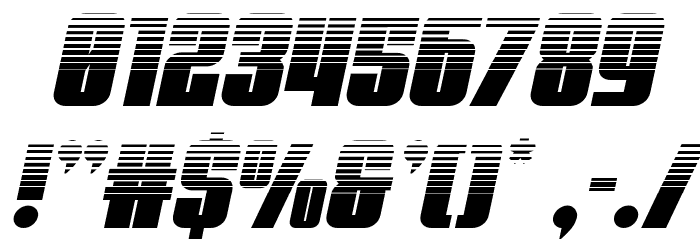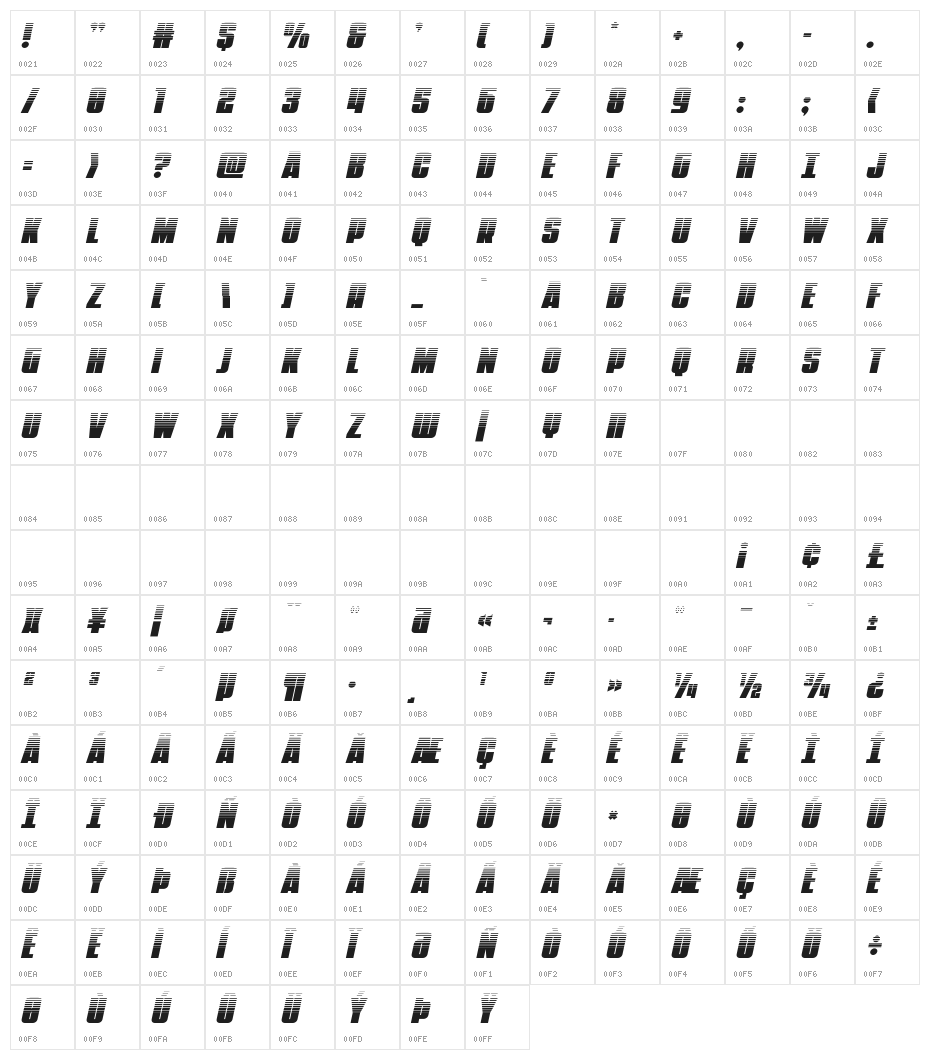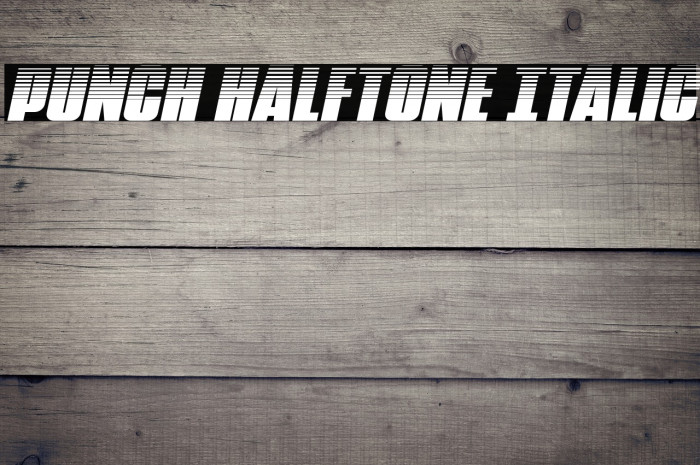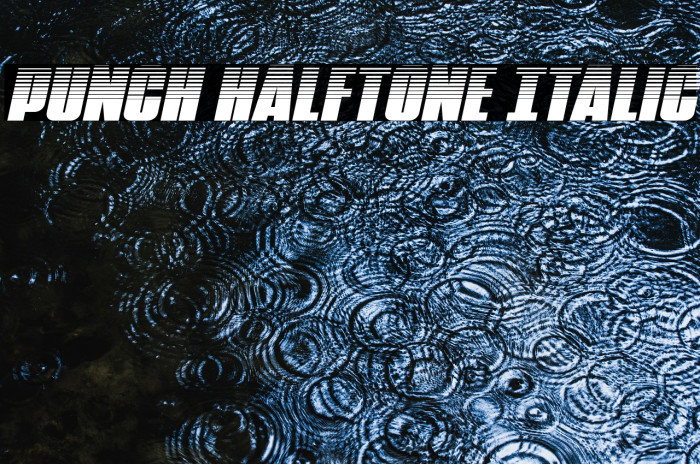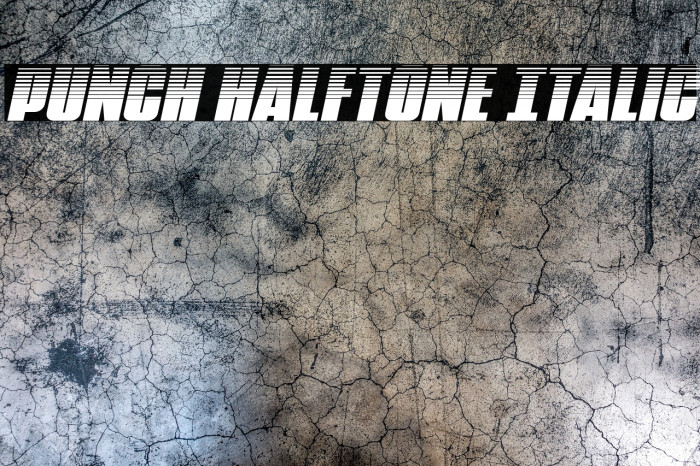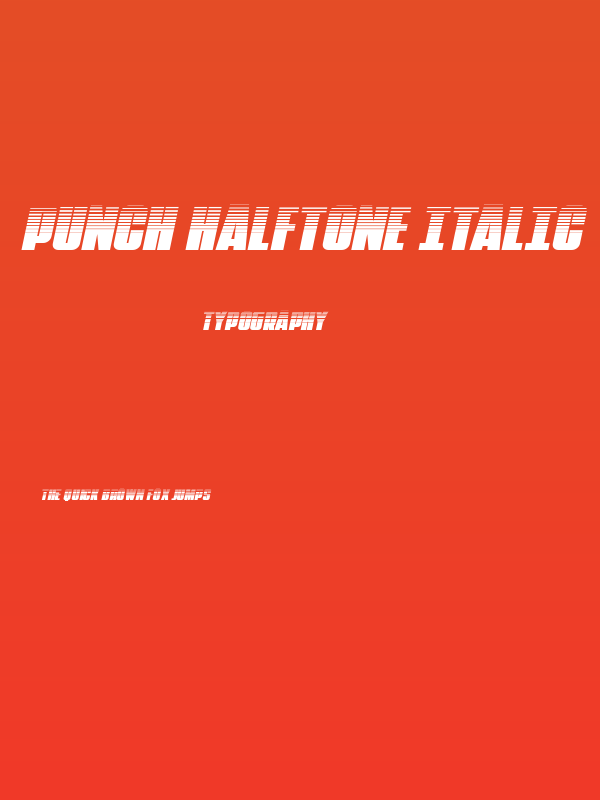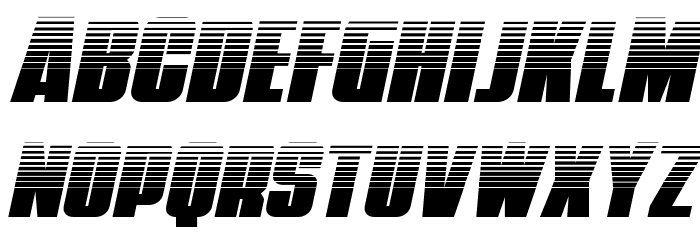
Punch Halftone Italic Font
Punch Halftone Italic Description
This font features a bold, italicized style with a distinctive halftone effect that gives it a dynamic and energetic appearance. The uppercase and lowercase letters are designed with a strong slant, enhancing the sense of motion. The characters are wide and have a substantial presence, making them ideal for impactful designs. The halftone pattern adds a unique texture, creating a sense of depth and visual interest. This font is perfect for projects that require a modern and edgy look, such as sports branding, music album covers, or dynamic posters.
| Proposed Projects | Ideal for sports branding, music album covers, dynamic posters, and edgy graphic designs. |